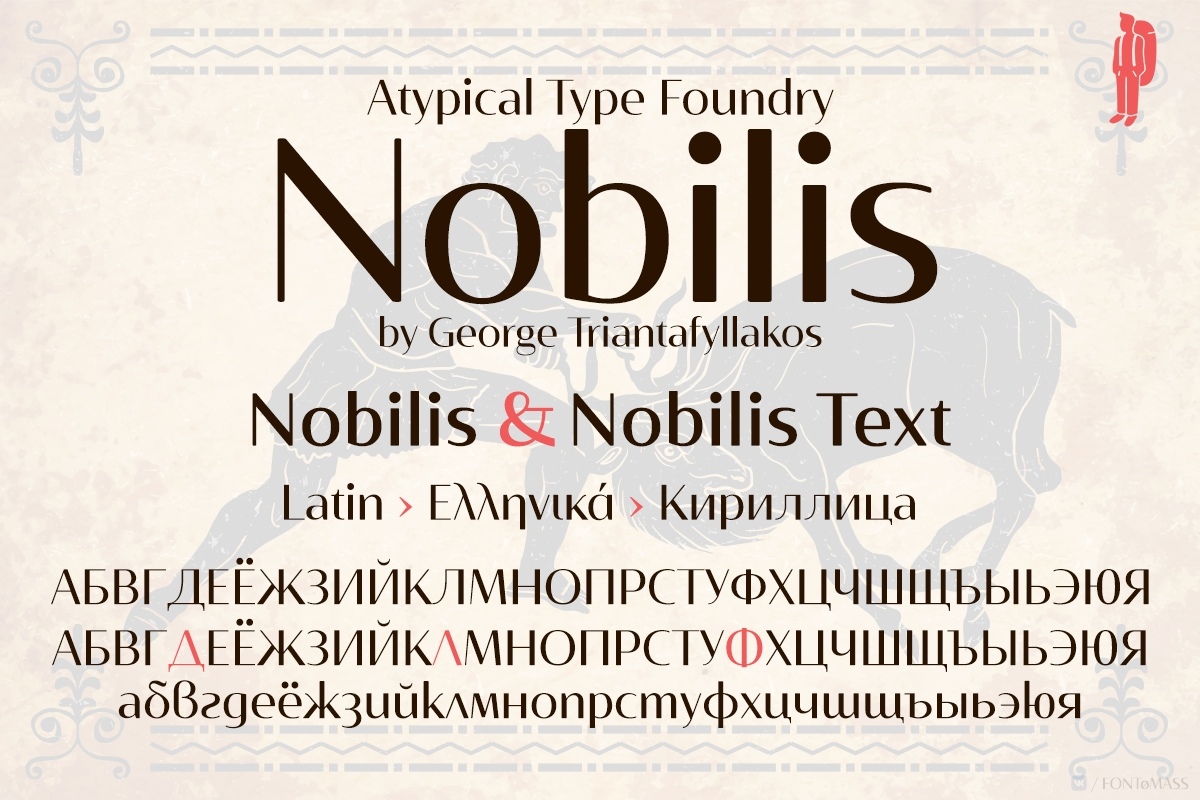
Nobilis & Nobilis Text Font
Nobilis & Nobilis Text Font is perfect for luxury brand identities, aristocratic event invitations, premium publishing projects, high-end legal documents, exclusive club materials, noble family crests, heritage foundation branding, distinguished award ceremonies, elegant wine labels, and sophisticated cultural institutions.
What makes Nobilis & Nobilis Text Font so exciting is its extraordinary ability to embody aristocratic elegance and refined nobility through letterforms that seem to carry centuries of distinguished heritage and cultural sophistication. This regal font duo captures the essence of noble traditions and aristocratic refinement with characters that radiate dignity, prestige, and timeless class. The fonts' distinguished design elements perfectly balance historical gravitas with contemporary luxury appeal, creating an indispensable pair that communicates exclusivity, cultural heritage, and sophisticated taste, making them essential for projects that demand the highest levels of elegance and social distinction.
Nobilis & Nobilis Text Font comes in multiple font families including Regular, Bold, Light, Italic, Bold Italic, Display, Heritage, and Aristocratic variations. Each family member maintains the core noble characteristics while offering different elegance levels and stylistic approaches to suit various luxury design requirements.
The aristocratic precision in Nobilis & Nobilis Text Font makes it particularly suitable for luxury markets and cultural institutions where conveying historical significance and social prestige is essential for connecting with sophisticated clientele. The display version commands attention while the text version maintains perfect readability across extended content, creating the ideal combination for comprehensive luxury branding and editorial applications.
Heritage marketing professionals recognize how Nobilis & Nobilis Text Font transforms ordinary communications into distinguished expressions of cultural refinement and aristocratic quality. The font duo's noble character sets include special heraldic symbols, aristocratic elements, and traditional decorative features that enhance the overall distinguished atmosphere of any luxury project.
For creative professionals serving luxury heritage brands, cultural institutions, and exclusive organizations, Nobilis & Nobilis Text Font serves as the perfect foundation for establishing memorable visual identities that capture the essential qualities of noble distinction, cultural sophistication, and aristocratic excellence that define truly prestigious brands in competitive luxury markets worldwide.